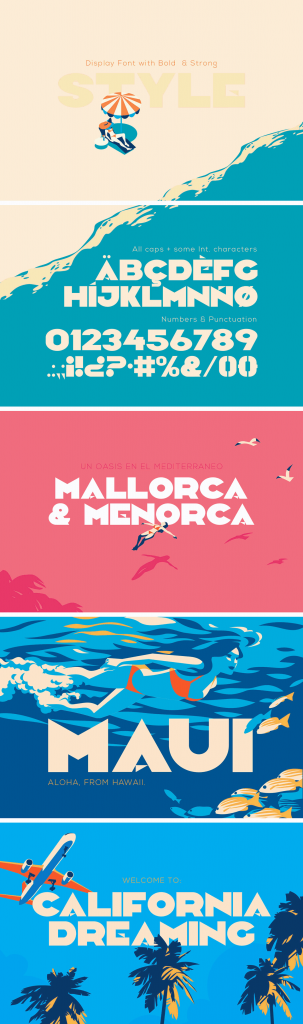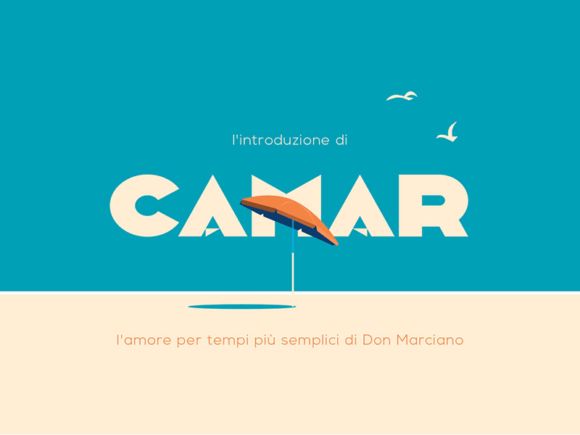
Camar: A Free Vintage Font
Camar is a free vintage typeface inspired to art deco and designed by Don Marciano. It was created for a set of postcards that needed a more modern feel.
From the era of modernization and expansion were anything seems to be possible, when simple meant elegant, when form and poise were the norms, we bring to you a unique Camar font.
Camar includes 187 glyphs an all caps font with no variants that includes all numbers and punctuation.